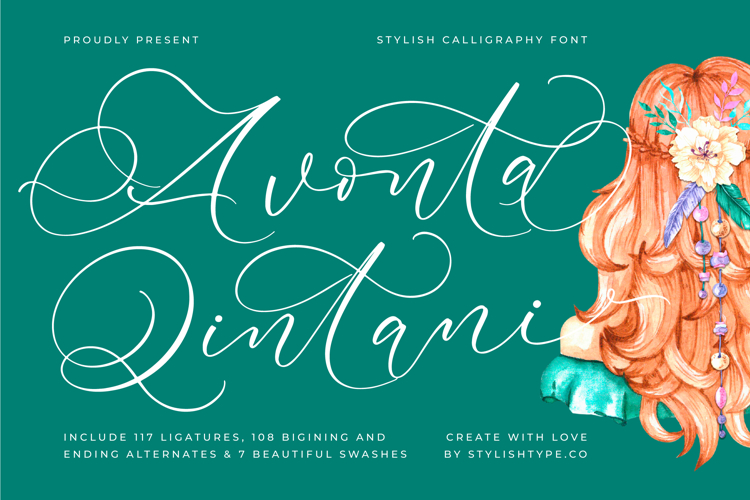
Avonta Qintani - Stylish Calligraphy Font
Avonta Qintani - Stylish Calligraphy Font. Including over 100 beginning and ending alternates, plus 117 complex ligatures and 7 beautiful swashes, this font allows for unlimited customization. It is perfect for exclusive luxury branding, elegant wedding invitations, premium packaging, editorial mastheads, and high-end cosmetic labels where a refined, memorable signature style is required.
Ligature Alternates & Swashes